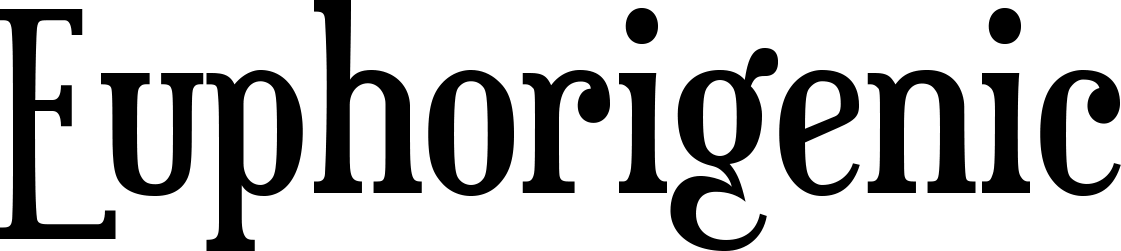
Euphorigenic Font
You can carry out an old-fashioned design with a vintage feel by utilizing this particular serif font. What makes this Euphorigenic font special ?! The slim bold characters have rounded, angeled, and formal edges that qualify you to reach one playful, professional typography.
Apart from all its features, it also provides mixed letters, numbers, and punctuation. Consider carrying out Euphorigenic for magazines, books, headlines, letterhead, and logs. Your design will be a real beauty by utilizing this font.
Euphorigenic is a fun slab-serif headline font. Its interesting, handcrafted design will lend your message a casual, one-of-a-kind voice. Most Latin-based European writing systems are supported, including the following languages. Afaan Oromo, Afar, Afrikaans, Albanian, Alsatian, Aromanian, Aymara, Bashkir (Latin), Basque, Belarusian (Latin), Bemba, Bikol, Bosnian, Breton, Cape Verdean, Creole, Catalan, Cebuano, Chamorro, Chavacano, Chichewa, Crimean Tatar (Latin), Croatian, Czech, Danish, Dawan, Dholuo, Dutch, English, Estonian, Faroese, Fijian, Filipino, Finnish, French, Frisian, Friulian, Gagauz (Latin), Galician, Ganda, Genoese, German, Greenlandic, Guadeloupean Creole, Haitian Creole, Hawaiian, Hiligaynon, Hungarian, Icelandic, Ilocano, Indonesian, Irish, Italian, Jamaican, Kaqchikel, Karakalpak (Latin), Kashubian, Kikongo, Kinyarwanda, Kirundi, Kurdish (Latin), Latvian, Lithuanian, Lombard, Low Saxon, Luxembourgish, Maasai, Makhuwa, Malay, Maltese, Māori, Moldovan, Montenegrin, Ndebele, Neapolitan, Norwegian, Novial, Occitan, Ossetian (Latin), Papiamento, Piedmontese, Polish, Portuguese, Quechua, Rarotongan, Romanian, Romansh, Sami, Sango, Saramaccan, Sardinian, Scottish Gaelic, Serbian (Latin), Shona, Sicilian, Silesian, Slovak, Slovenian, Somali, Sorbian, Sotho, Spanish, Swahili, Swazi, Swedish, Tagalog, Tahitian, Tetum, Tongan, Tshiluba, Tsonga, Tswana, Tumbuka, Turkish, Turkmen (Latin), Tuvaluan, Uzbek (Latin), Venetian, Vepsian, Võro, Walloon, Waray-Waray, Wayuu, Welsh, Wolof, Xhosa, Yapese, Zapotec Zulu and Zuni.